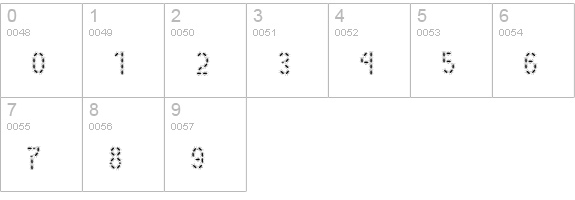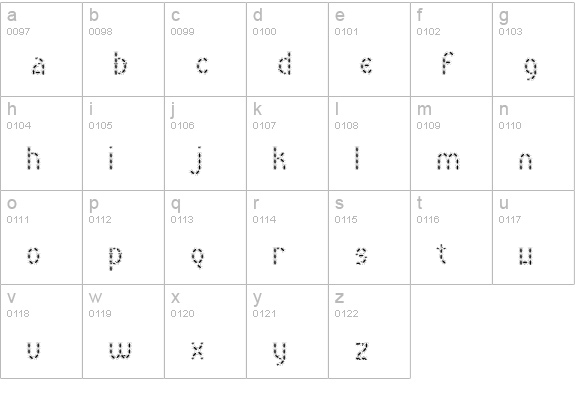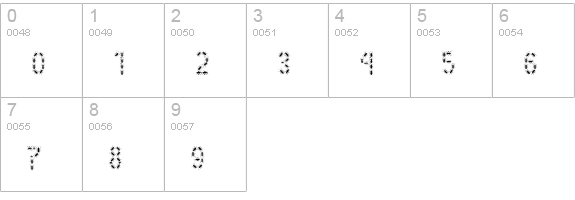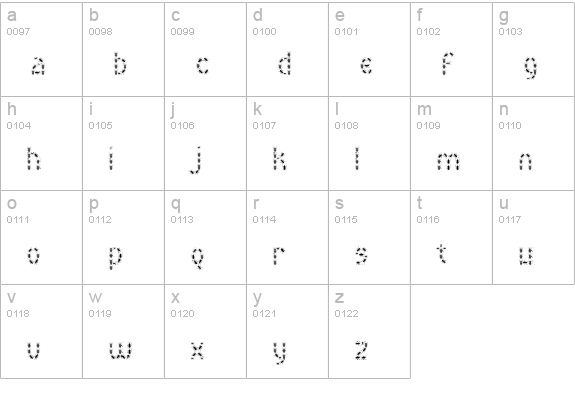
BuggyFont Font Details
Introducing BuggyFont - a whimsical and playful font designed to add a touch of creativity to your projects. This quirky typeface features unique and eye-catching characters that are sure to make your designs stand out. BuggyFont is perfect for a variety of uses, from branding and logos to invitations and social media graphics. The best part? BuggyFont is completely free! That's right, you can download this charming font at FontsMarket.com at no cost. Whether you're a designer looking to add a fun twist to your work or someone in need of a fresh and imaginative font for personal projects, BuggyFont is the perfect choice. With its fun and cheerful style, BuggyFont is sure to bring a smile to your audience's face. So why wait? Download BuggyFont today and let your creativity soar with this delightful and freely available font.